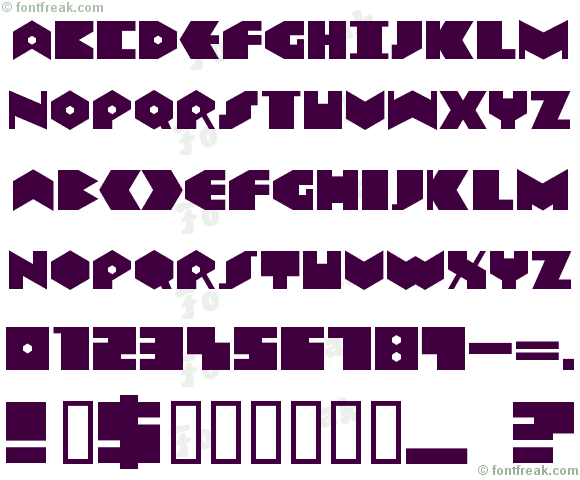
Data Transfer
About Data Transfer
The "Data Transfer" font by Levi is a striking display typeface that embodies a modern, tech-inspired aesthetic. Characterized as a sans-serif font, it features bold, geometric letterforms that convey a sense of efficiency and clarity. The stroke weight is consistently thick, providing a strong visual presence, while the minimal contrast between the thick and thin strokes enhances its readability. The spacing is carefully balanced, allowing for easy legibility in various applications.
This font is particularly well suited for contemporary branding projects, such as tech startups, digital marketing materials, and user interface designs. Its distinctive style makes it an excellent choice for event posters, especially those in the tech or gaming industries, where a futuristic look is desired. Additionally, "Data Transfer" can elevate the visual appeal of product packaging and promotional materials, drawing attention with its unique character. Graphic designers and content creators will find this font invaluable for creating eye-catching headlines and engaging layouts.
What makes the "Data Transfer" font stand out is its ability to blend modern design with functionality. It captures the essence of digital communication while remaining versatile enough for a variety of applications. Whether you're crafting a sleek poster or designing a brand identity, the "Data Transfer font free download" offers a unique solution that enhances visual storytelling and captivates audiences.